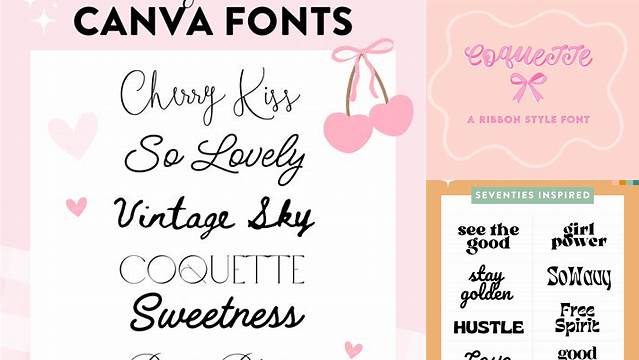
Coquette Fonts In Canva: A Guide For Girly Designs
Are you, like, totally obsessed with the coquette aesthetic? You know, the one that's all about delicate details, dreamy vibes, and a touch of vintage charm? If you're nodding your head, then you're in the right place, besties! This guide is your ultimate cheat sheet to mastering coquette fonts in Canva. We'll dive deep into the world of fonts, explore how to find the perfect ones, and give you tips on using them to create designs that are both girly and effortlessly chic. So grab your favorite drink, settle in, and let's get started on creating some seriously adorable designs! This article is your go-to resource for everything coquette in Canva, from font recommendations to design tips. You'll be creating dreamy, aesthetic graphics in no time. Let's get started!
What is the Coquette Aesthetic, Anyway?
Before we jump into the fonts, let's make sure we're all on the same page about what the coquette aesthetic even is. Basically, it's a visual style that embraces femininity, romanticism, and a hint of playfulness. Think of it as the grown-up version of your childhood dreams, but with a touch of vintage flair. The coquette aesthetic often incorporates soft colors like pastel pinks, baby blues, and creams, along with delicate details like lace, bows, and pearls. It's all about embracing a sense of innocence and charm, while still feeling confident and stylish. This aesthetic has become increasingly popular on platforms like TikTok and Instagram, where users are showcasing everything from fashion and makeup to room decor and photography. It's all about creating a visual world that's both pretty and inviting. The essence of this aesthetic is about embracing all things feminine, delicate, and charming. It's like stepping into a fairytale, but with a modern twist. If you love the look of vintage clothing, romantic imagery, and a touch of sweetness, the coquette aesthetic is definitely for you. We're going to make sure you're ready to create content that captures this feeling perfectly!
Key Elements of the Coquette Aesthetic
To really nail the coquette aesthetic, you need to understand its core elements. These are the things that will help you create designs that are instantly recognizable as coquette-inspired. First up, color palettes. Think soft and dreamy. Pastel pinks, lavender, baby blues, and creamy whites are your best friends here. But don't be afraid to add pops of deeper colors like burgundy or emerald green for contrast. Next, imagery. Romantic and nostalgic elements are key. Consider using images of vintage lace, ribbons, bows, pearls, flowers, and delicate jewelry. Embrace imagery that evokes feelings of nostalgia and whimsy. The fonts play a huge role, which is, of course, what we're here to discuss! Choose fonts that are elegant, handwritten, or have a touch of vintage charm. Script fonts, in particular, are perfect for conveying a sense of romance and femininity. Combine these with decorative elements such as hearts, stars, and other cute graphics to give your designs that special touch. Finally, textures can add depth and visual interest. Incorporate textures like lace, silk, or velvet to add depth and create a luxurious look. Keep it soft and delicate, and avoid anything too harsh or bold. When used correctly, textures can make your designs come alive. By combining these elements, you'll be well on your way to creating stunning coquette designs that capture the hearts of your audience. Now, let's dive into finding the perfect fonts for your creations!
Finding Coquette Fonts in Canva
Okay, guys, let's get down to the nitty-gritty: finding those perfect fonts in Canva! Thankfully, Canva has a ton of options to choose from, but finding the right ones can sometimes feel a little overwhelming. Don't worry, I'm here to break it down for you. First, let's talk about where to look. In Canva, you'll find the font options within the text tool. Just add a text box to your design, and then click on the font dropdown menu. From here, you'll be able to browse through a vast library of fonts, or filter your search to narrow down your options. When searching for coquette fonts, I recommend starting with a few key search terms. Try terms like "script," "handwritten," "elegant," "feminine," and "vintage." These keywords will help you narrow down your search and find fonts that match the coquette aesthetic. Then, you can also browse through different categories. Canva organizes its fonts into various categories, which can be helpful in finding fonts that are particularly suitable for this style. Keep an eye out for categories like "handwriting," "serif," or "decorative." If you're feeling adventurous, you can even experiment with pairing different fonts together to create unique and personalized designs. Remember, it's all about finding a balance between different styles. One tip is to look at the font previews in Canva. Pay attention to how the font looks in different sizes and styles. Does it have a delicate and feminine feel? Does it convey the sense of romance that you're aiming for? Also, don't be afraid to experiment! Try out different fonts, combine them, and see what works best for your design. It's all about finding the right combination that suits your vision. Now, let's look at some specific font recommendations to get you started!
Recommended Coquette Fonts in Canva
Here are some font recommendations that are perfect for the coquette aesthetic in Canva. These fonts have the elegant, feminine, and romantic qualities that you're looking for. First up, we have script fonts. Script fonts are a staple in the coquette aesthetic. They give that handwriting feel, which adds a personal and delicate touch. A few great options include: “Dancing Script,” which has a playful and elegant vibe, and “Allura,” which is a simple but elegant script font. Another good choice is “Great Vibes,” which is perfect for a more sophisticated look. Next, let’s check out some serif fonts. Serif fonts are a classic choice that can also work well in coquette designs, especially if they have a touch of vintage charm. Try “Playfair Display,” which is both elegant and readable. Another option is “Lora,” which is known for its graceful curves and delicate appearance. Then, there are handwritten fonts, such as “Caveat,” which gives a more informal, friendly feel, and “Architects Daughter,” which has a very unique and personalized feel. It's ideal for creating a handcrafted aesthetic. Lastly, consider the decorative fonts. Decorative fonts can add some extra whimsy and personality to your designs. “Amatic SC” is a good option that is clean and readable but still has a charming feel. “Sacramento” has a more vintage and retro style. Experiment with different font combinations to find the perfect balance of style and readability for your design. Remember, the best fonts are the ones that resonate with your personal style and design goals. So, go ahead and try a few and discover what works best for you.
Pairing Fonts and Creating Coquette Designs
Alright, besties, now that you've got a handle on finding the right fonts, it's time to talk about how to actually use them in your designs. The key to any good design is balance, and that goes double for the coquette aesthetic. You want to create a look that's cohesive and visually appealing. Let's cover some basics on font pairing and design to make you a pro at creating coquette designs. First, choose a focal font. This is the font you want to use for your main headings or key text elements. It should be the most eye-catching font in your design. Choose a font that captures the essence of the coquette aesthetic. Next, select a complementary font. This font will be used for body text or supporting elements. It should complement your focal font without competing with it. Consider using a simpler, more readable font for body text to ensure your content is easy to read. Then, consider contrast. Contrast is key to creating a visually interesting design. Pair a delicate script font with a more simple sans-serif font, or combine a bold headline font with a softer body text. This contrast will make your design more dynamic and engaging. Make sure to keep readability in mind. While it's tempting to go wild with fancy fonts, make sure your text is still easy to read, especially for longer bodies of text. Avoid using overly ornate fonts for large blocks of text. Let’s also keep in mind color palettes that match the coquette aesthetic. As mentioned before, pastel pinks, baby blues, and creams are your best friends here. However, don't be afraid to incorporate touches of deeper colors for contrast. Finally, let’s think about layout and design. Consider the layout of your design, and how your fonts fit within the overall structure. Think about things like spacing, alignment, and the placement of your text elements. Using white space can help make your design look more organized and visually appealing. When designing with coquette fonts, keep in mind that less is often more. Don't overwhelm your design with too many fonts or decorative elements. A minimalist approach can often be more effective. Remember, the goal is to create designs that are both stylish and functional. Now, let’s dive into some practical tips to guide you!
Design Tips for a Coquette Vibe
Okay, let's get specific and talk about some design tips to truly nail that coquette vibe. First, use soft color palettes. Pastel colors are the foundation of the coquette aesthetic. Think of soft pinks, creams, baby blues, and lavenders. Use these colors in your background, text, and design elements. Next, incorporate delicate elements. Think lace, ribbons, bows, and pearls. You can find these elements in Canva's elements library and incorporate them into your designs. Then, focus on imagery. Choose images that are romantic and evoke feelings of nostalgia. Consider using images of vintage lace, ribbons, bows, flowers, and delicate jewelry. Avoid harsh or overly bold imagery. Let’s also think about layout and composition. Use a clean layout with plenty of white space to keep your design looking organized and visually appealing. Experiment with different layouts until you find one that suits your needs. Then, experiment with textures. Add depth and visual interest by incorporating textures like lace, silk, or velvet. You can find these textures in Canva's element library. Finally, consider the overall feel. Create designs that are dreamy, romantic, and feminine. Don't be afraid to add a touch of whimsy and playfulness. Remember, the goal is to create designs that are both beautiful and inviting. When combining all of these elements, it's important to find the right balance. Make sure your designs are visually appealing without feeling cluttered. Experiment with different techniques, like layering text, using images, or creating unique color combinations. By following these tips, you'll be well on your way to creating stunning coquette designs that capture the hearts of your audience.
Where to Use Your Coquette Designs
Now that you know how to create coquette designs in Canva, let's talk about where to use them. The great thing about this aesthetic is that it's versatile and can be used in various contexts. First off, social media is a great place to showcase your designs. Create Instagram posts, Pinterest pins, and TikTok videos with your coquette-inspired graphics. Use them to promote your brand, share your content, or simply express your creativity. Next, think about print materials. Create flyers, posters, or business cards with your coquette designs. Use them to promote your business, event, or creative project. Make sure to print them on quality paper to enhance the overall look. Furthermore, you can also use them on websites and blogs. Use your coquette designs to create website banners, blog graphics, and social media headers. This will help you establish your brand identity and make your website more visually appealing. Also, personal projects are ideal. Create mood boards, invitations, or personal projects. They can be used for invitations, greeting cards, or anything else. You can also use these designs for your personal projects and express your creativity. So, go ahead, use your coquette-inspired designs in various contexts and share your creativity with the world!
So there you have it, friends! Your complete guide to coquette fonts in Canva. From finding the perfect fonts to pairing them effectively and creating stunning designs, you're now equipped with the knowledge and inspiration to bring your coquette visions to life. Remember to embrace the softness, the romance, and the playful spirit of this beautiful aesthetic. Experiment with different fonts, colors, and elements, and most importantly, have fun! Now go forth and create some seriously adorable designs that will make everyone swoon. Happy designing, and I can't wait to see what you create!